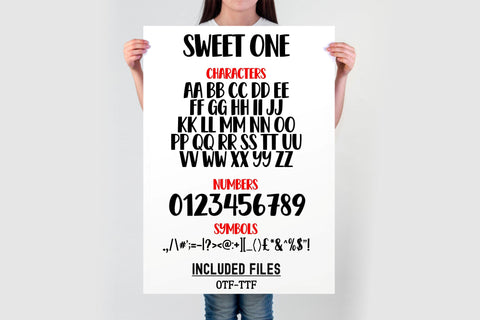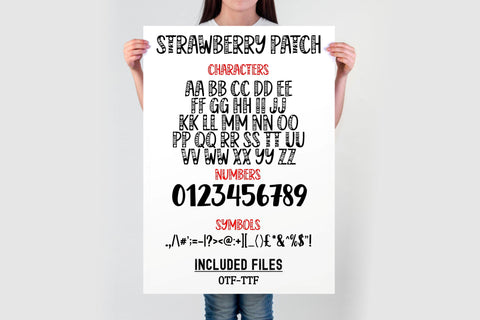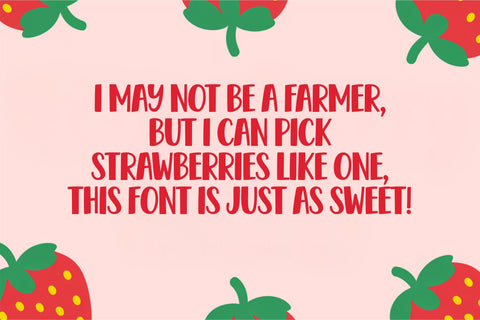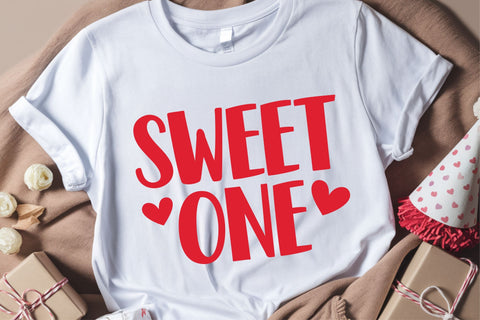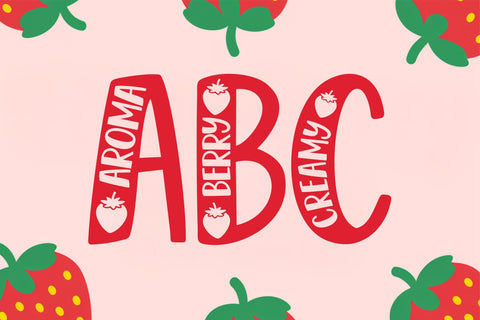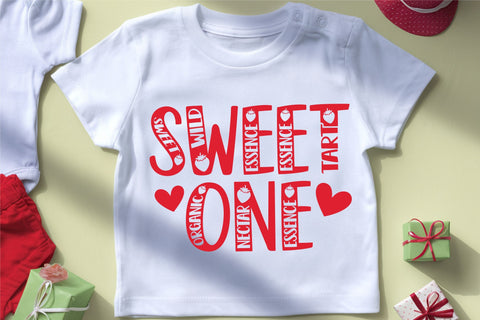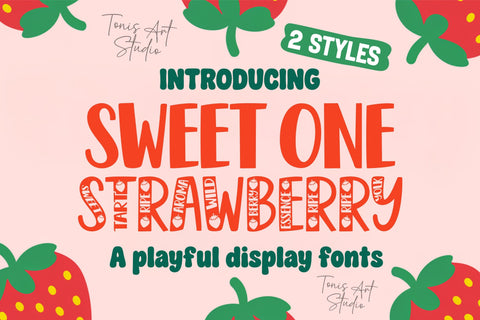
Strawberry Font Bundle | Cute Playful Berry Font Duo
The Strawberry Font Bundle features Sweet One & Strawberry Patch, a playful and fun handwritten font duo inspired by the sweetness of strawberries. Perfect for t-shirts, summer projects, DIY crafts, digital designs, invitations, stickers, and more.
This duo includes a cute display font and a decorative berry-themed font, making it ideal for creative projects that need a bold, whimsical touch. The fonts are provided in OTF and TTF formats and include uppercase, lowercase, numbers, and symbols.
Great for:
✔️ T-shirt designs
✔️ Logos & branding
✔️ Scrapbooking & invitations
✔️ Stickers & digital products
✔️ DIY crafts & Cricut projects
This font duo brings a fresh, fruity, and playful vibe to any project!